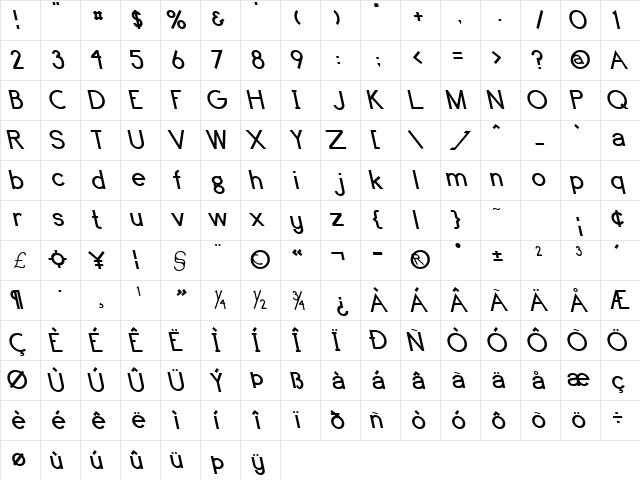
Endangered Regular
Design Context for Endangered Typeface
Endangered offers clean, dependable letterforms without strong stylistic allegiance, making it a practical choice for designers who need flexibility.